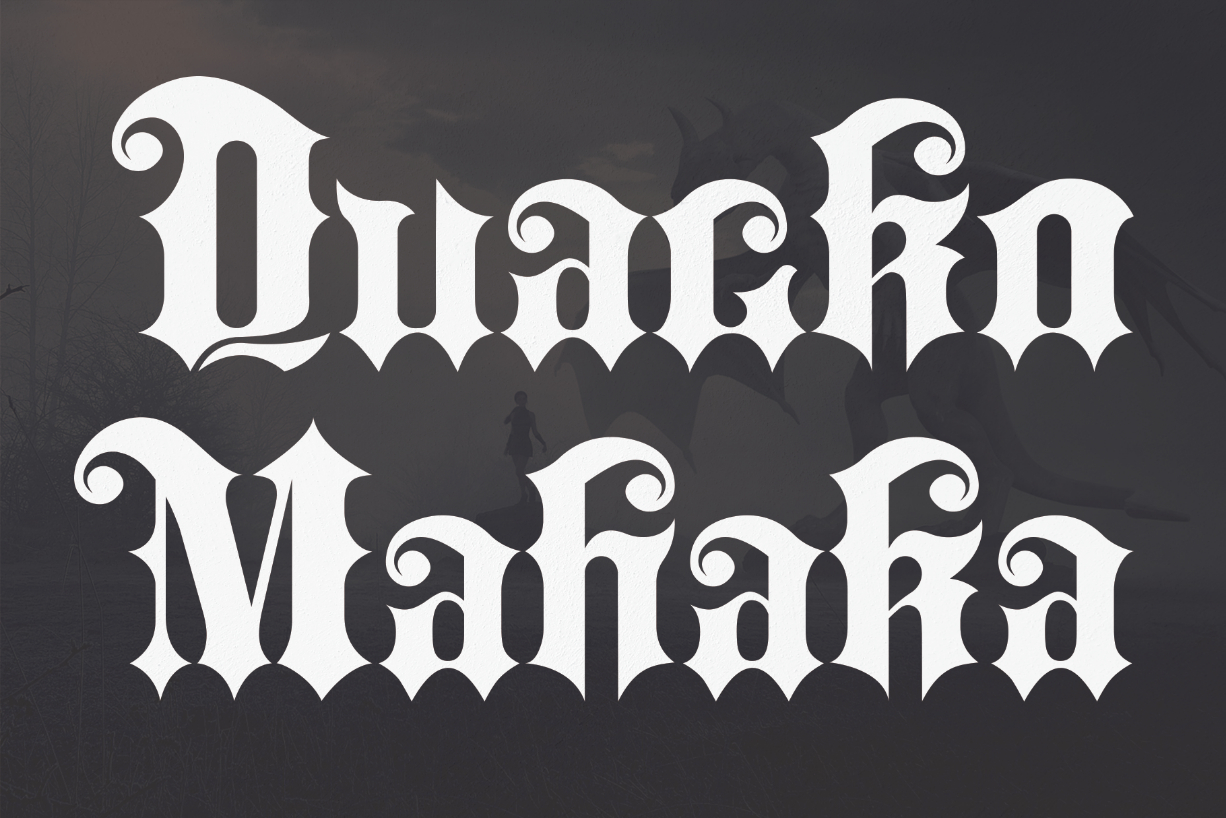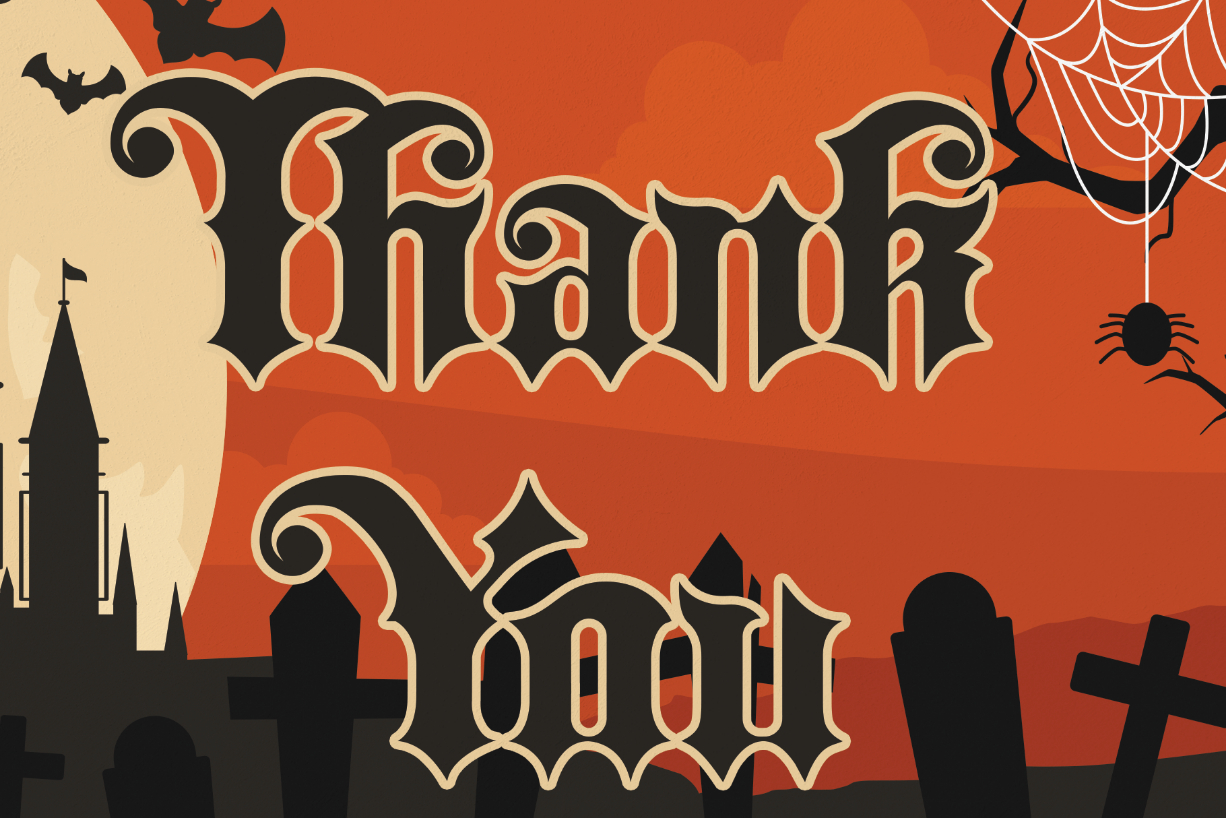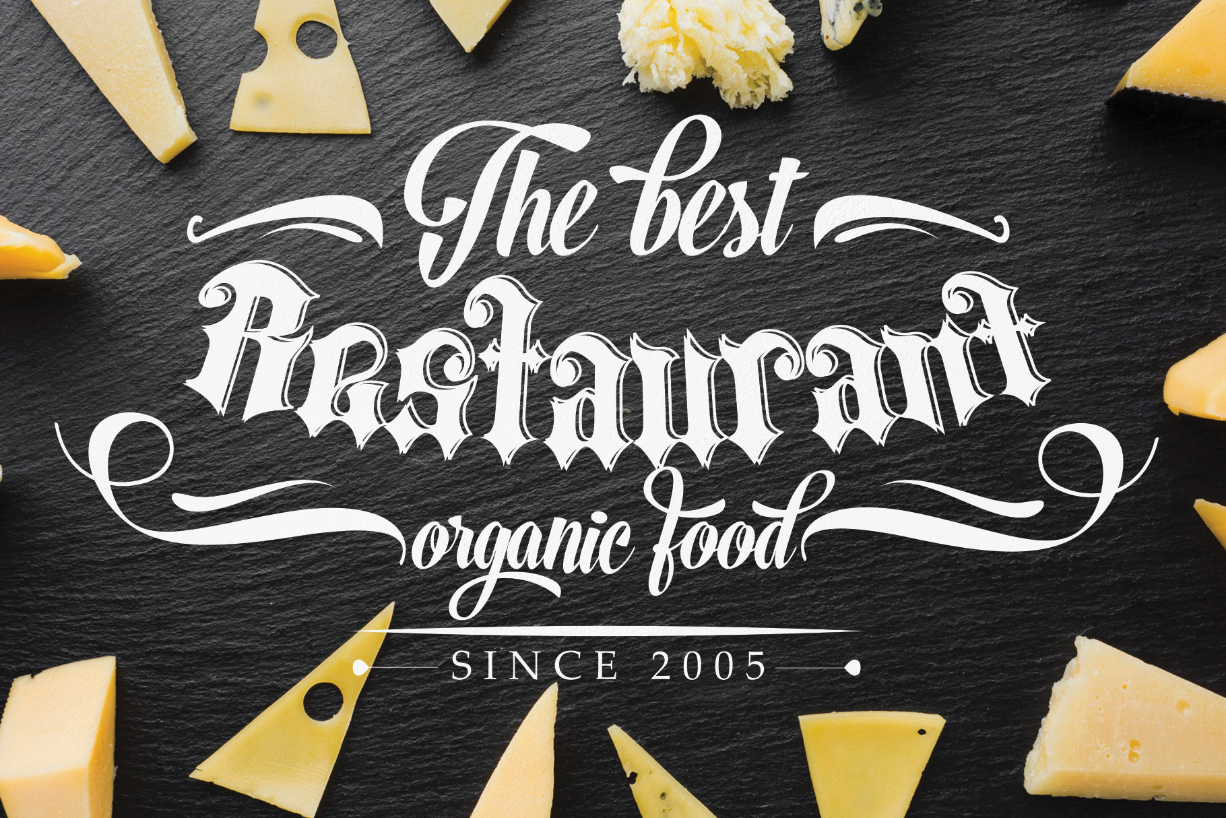
About Quacko Mahaka Font
Quacko Mahaka is an authentic and bold blackletter font. Add this font to your favorite creative idea and watch how it makes it stand out!